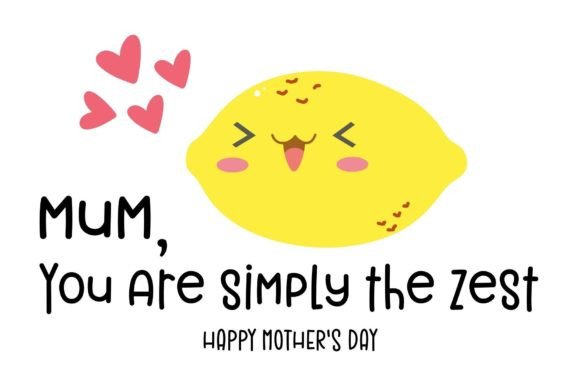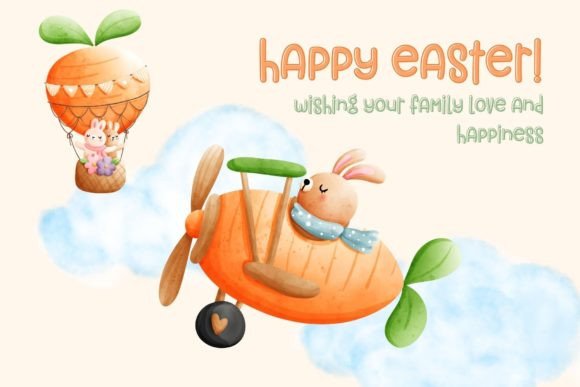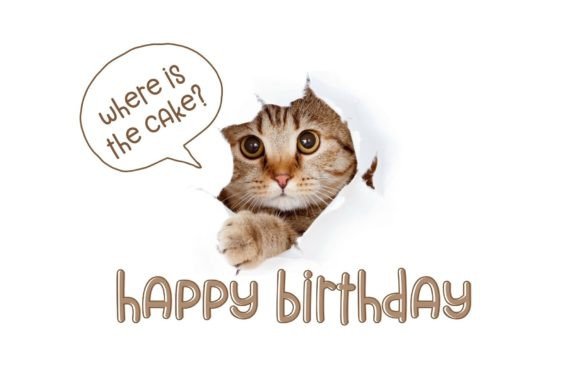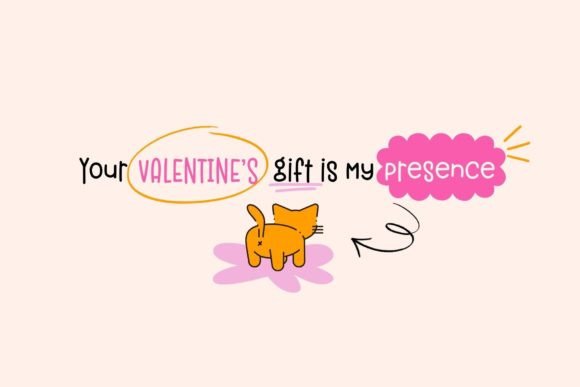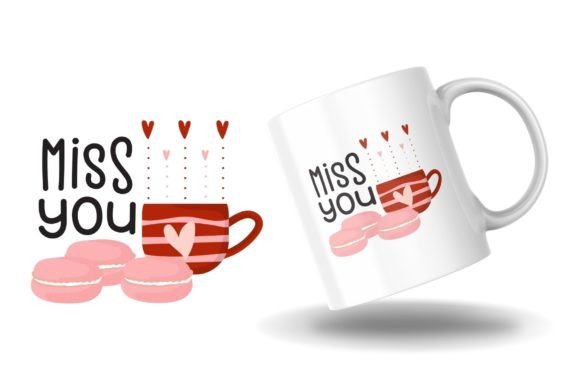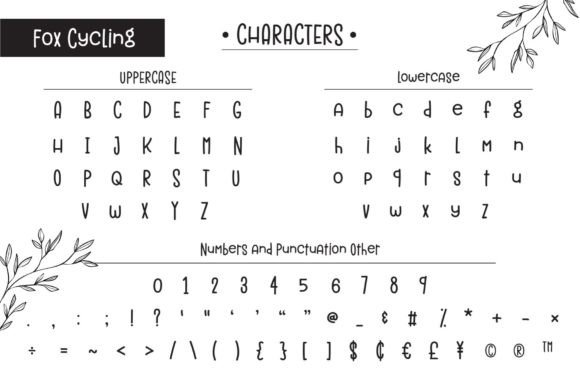
Introduction to Fox Cycling Font Font
Fonts play a crucial role in design, and the Fox Cycling Font font is a typeface that brings both character and versatility to any project. Whether you’re working on a branding project, a website, or a print design, the Fox Cycling Font font offers a unique style that can elevate your work.
The Fox Cycling and Fox Cycling Outline fonts are a charming and inviting handwritten typeface that exudes warmth and friendliness.
Perfect for use in publications, menus, logos, business cards, or even printed on t-shirts, these fonts exude uniqueness They stand out in everything, regardless of the subject matter.
Key Features of Fox Cycling Font Font
Why Choose Fox Cycling Font Font?
The Fox Cycling Font font is more than just a typeface – it’s a design tool that helps you communicate your message with style and clarity. Its unique character set and versatile design make it suitable for a wide range of applications, from elegant invitations to bold headlines.
With its carefully crafted letterforms and balanced proportions, the Fox Cycling Font font ensures readability and visual appeal across all mediums.
What makes Fox Cycling Font font special?
The Fox Cycling Font font stands out with its unique design, exceptional readability, and versatility across various design applications.